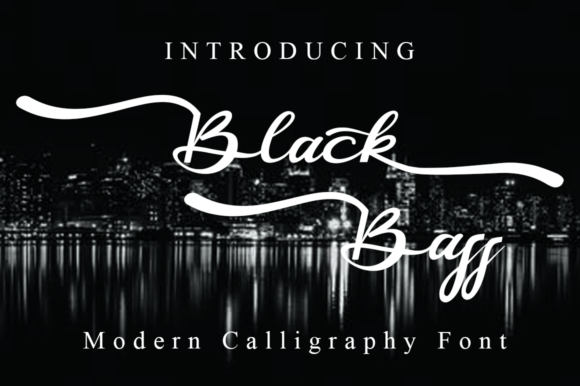
The Elusive Font: My Journey with Black Bass
I still remember the frustration of working on a project, hours spent searching for the perfect font, only to come up empty-handed. My client wanted something elegant, yet playful; something that would make their brand stand out. That’s when I stumbled upon Black Bass, an exquisite handwritten font that caught my eye. Its distinct and well-balanced letters made it a masterpiece, and I knew I had found what I was looking for.
An Honest Review of Black Bass
So, what makes Black Bass so special? Let’s dive into the good stuff and, of course, the not-so-perfect aspects.
- ✨ PUA Encoding: Black Bass is PUA encoded, which means you can access all of the glyphs and swashes with ease!
- ✅ Elegant and Playful: The font’s unique blend of elegance and playfulness makes it perfect for a wide range of projects.
- 💫 Highly Versatile: From branding and advertising to packaging and invitations, Black Bass can do it all.
- ⚠️ Glyph Overload: With so many glyphs and swashes available, it can be overwhelming to navigate and choose the right ones.
- 🤔 Pairing Challenges: Black Bass can be a bit tricky to pair with other fonts, requiring some experimentation to find the perfect match.
The Story Behind Black Bass
Black Bass was designed with the intention of creating a font that would evoke a sense of elegance and playfulness. The designer aimed to craft a font that would be both versatile and unique, making it perfect for a wide range of projects. While the designer’s true identity remains a mystery, their passion and dedication to creating a beautiful font shine through in every letter.
| Is Black Bass a script font? | While Black Bass has script-like qualities, it is classified as a handwritten font, offering a more personal and elegant feel. |